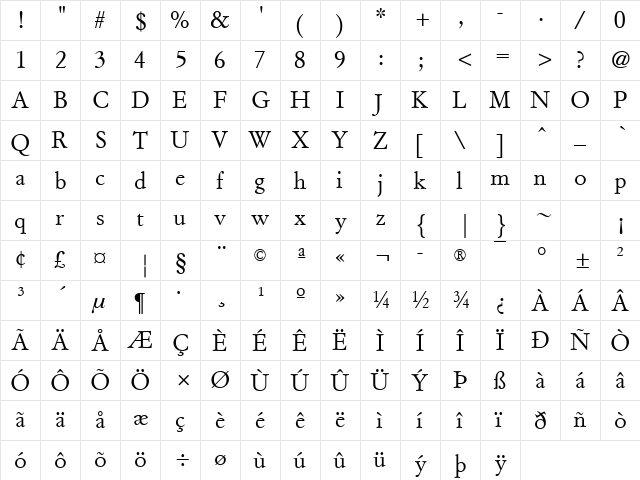
Guatemala Antique
Design Context for Guatemala Typeface
Guatemala wears its vintage influences proudly, with letterforms that recall mid-century signage, classic packaging, and nostalgia-driven design.
Ideal for diner signage, record shop branding, 70s/80s-themed projects, and heritage product labels.
Font Pairing: Combine Guatemala with a simple slab or neutral sans — period-accurate companions reinforce the vintage feel without competing for attention.
Pro Tip: Lean into Guatemala's period character by pairing it with aged paper textures, muted colour palettes, and vintage illustration styles.